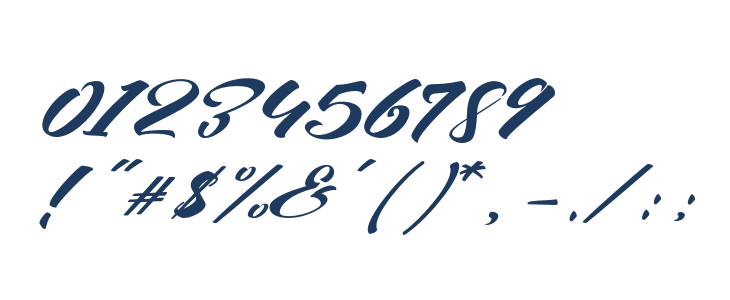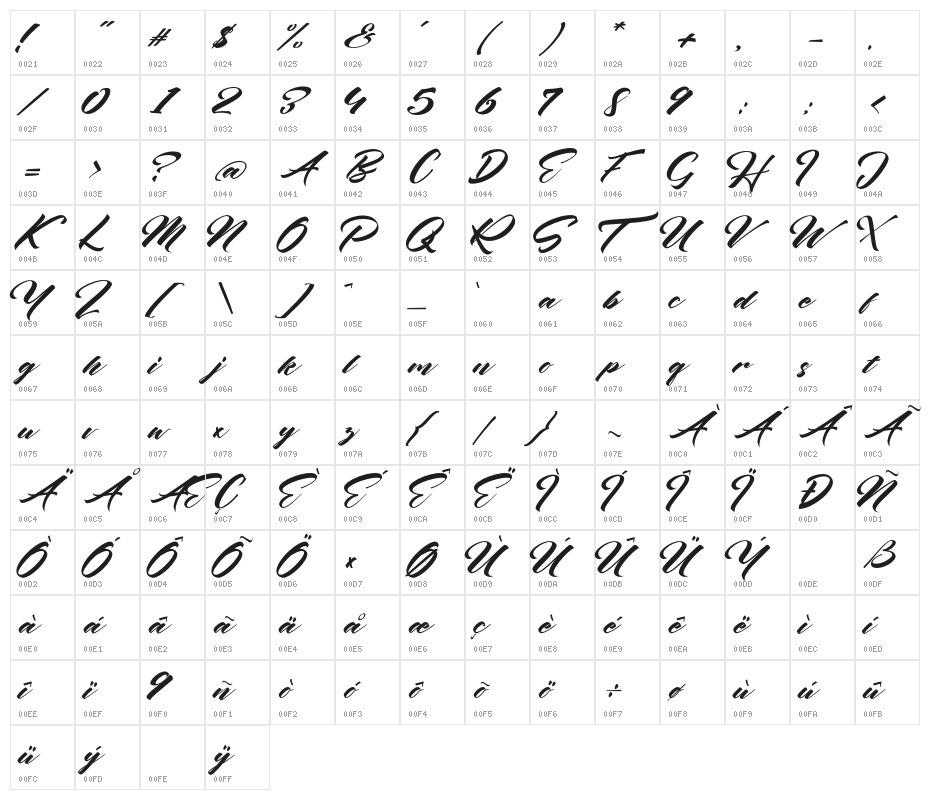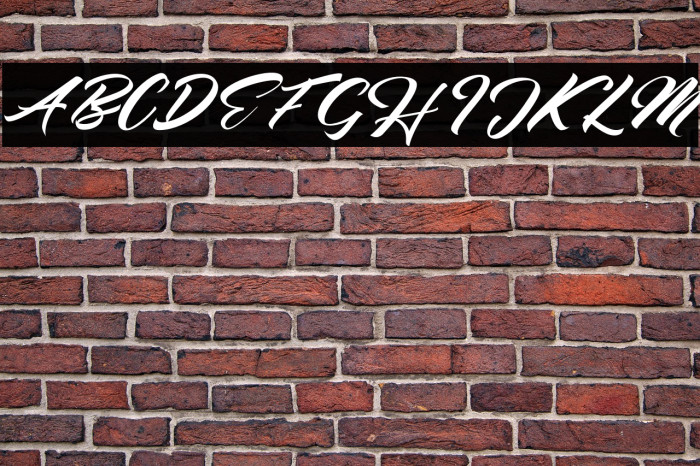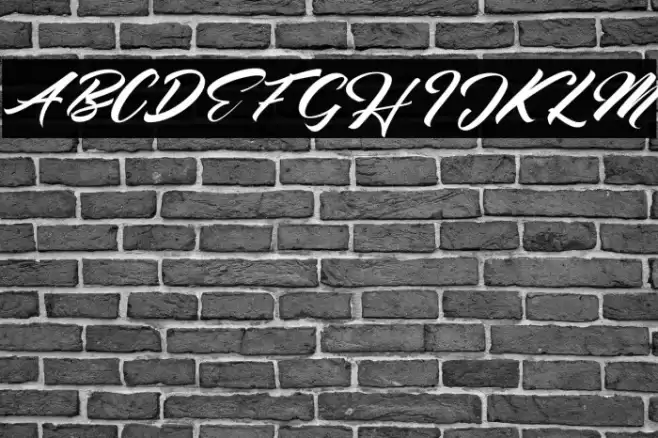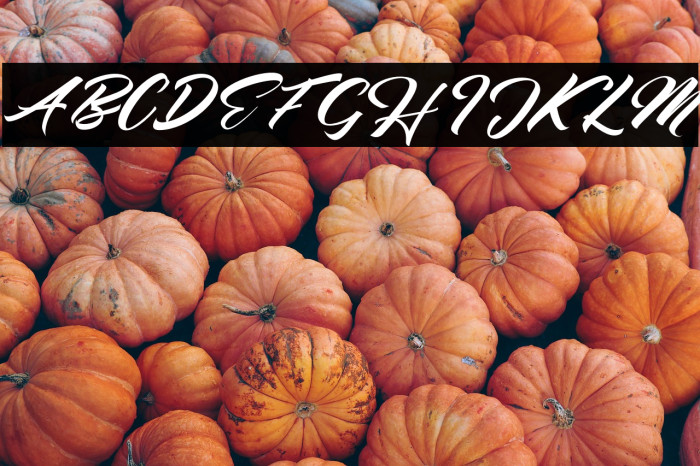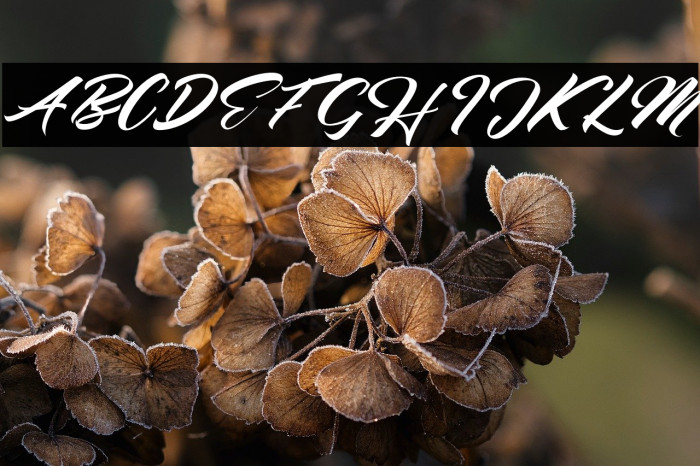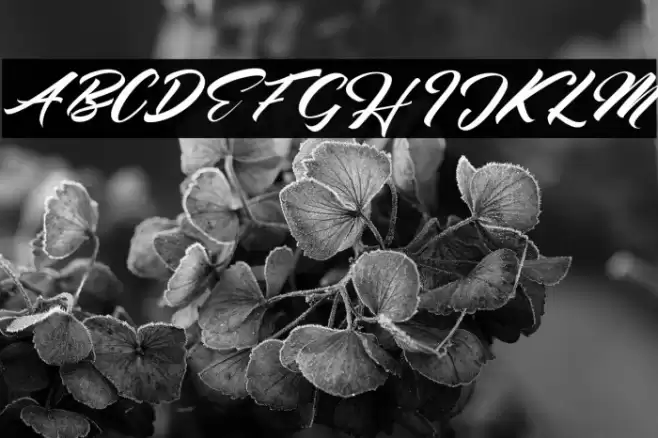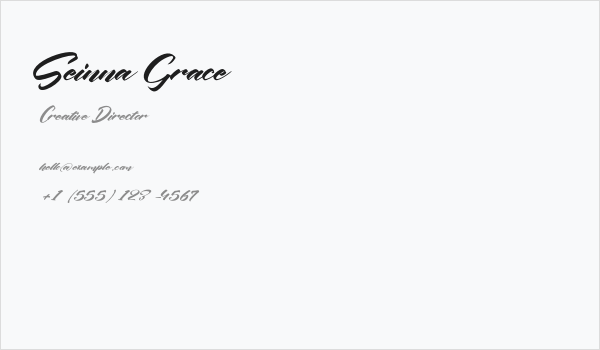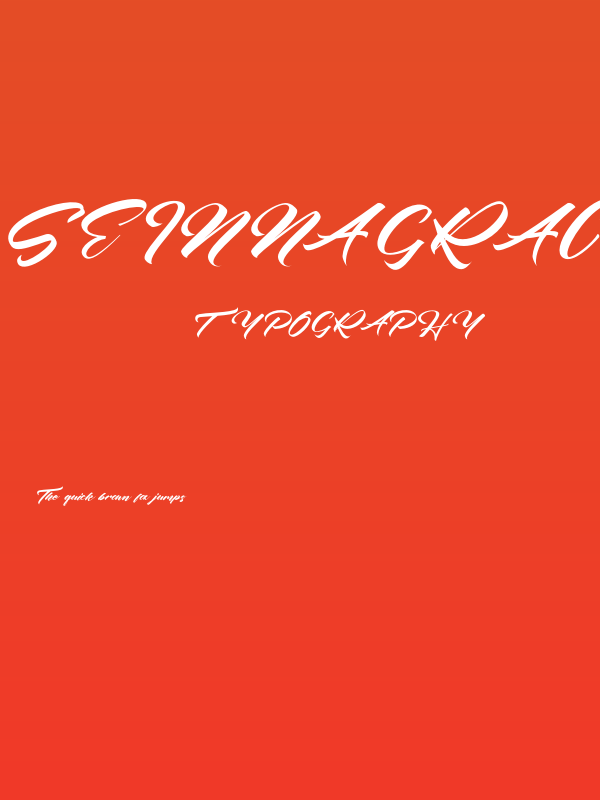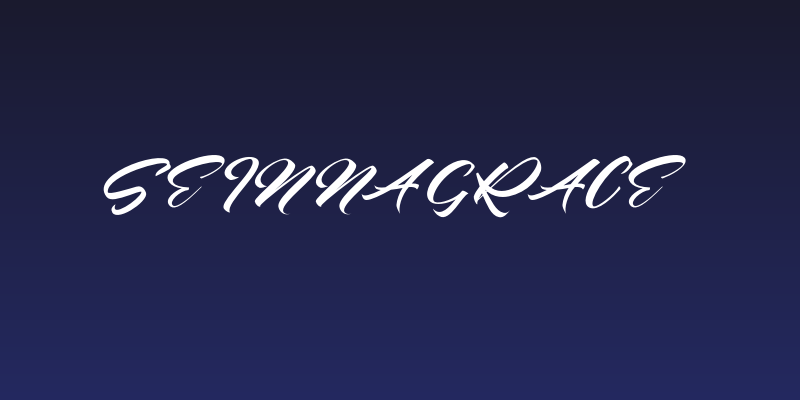
Seinna Grace Font
Seinna Grace Description
This font exudes elegance and fluidity, characterized by its cursive script style with smooth, flowing lines. The letters are connected in a graceful manner, giving it a handwritten appearance. The uppercase letters are bold and prominent, while the lowercase letters maintain a consistent flow, enhancing readability. The numerals are stylish and align well with the overall script theme. Special characters are crafted with the same attention to detail, ensuring they blend seamlessly with the alphabet. This font is ideal for projects that require a personal touch, such as invitations, greeting cards, or branding materials.